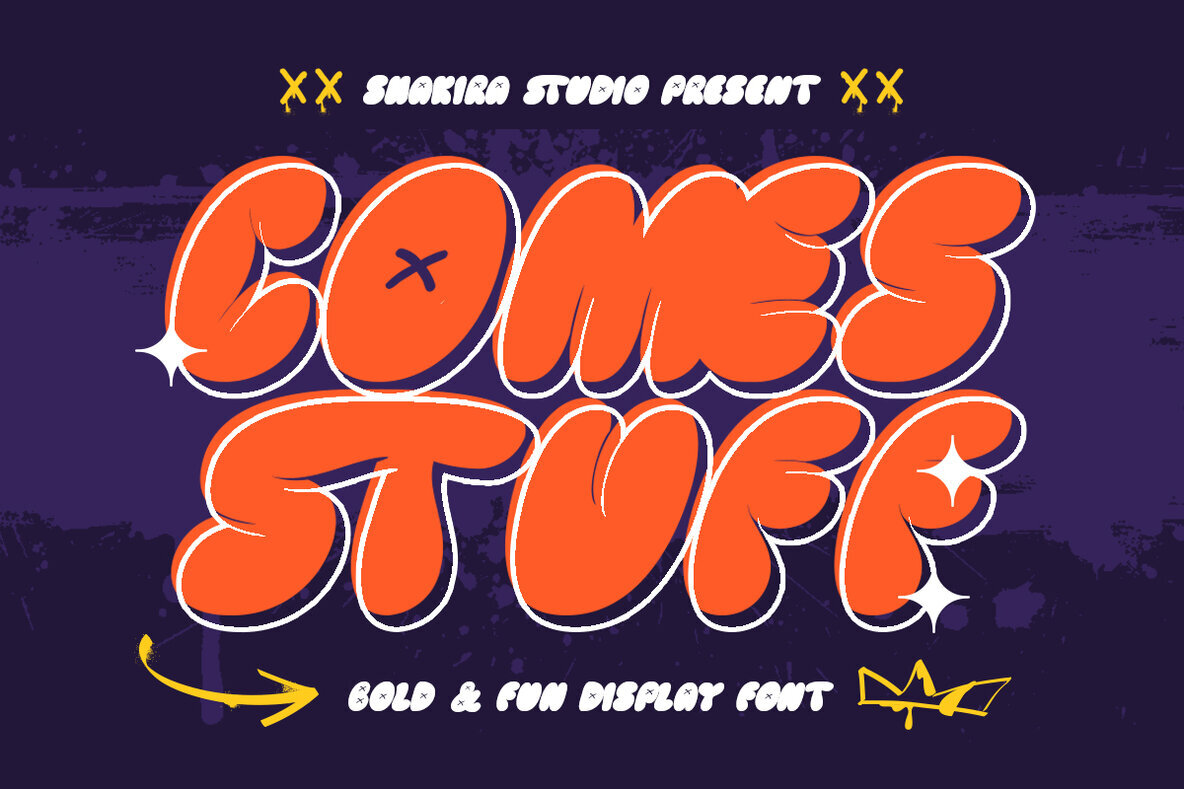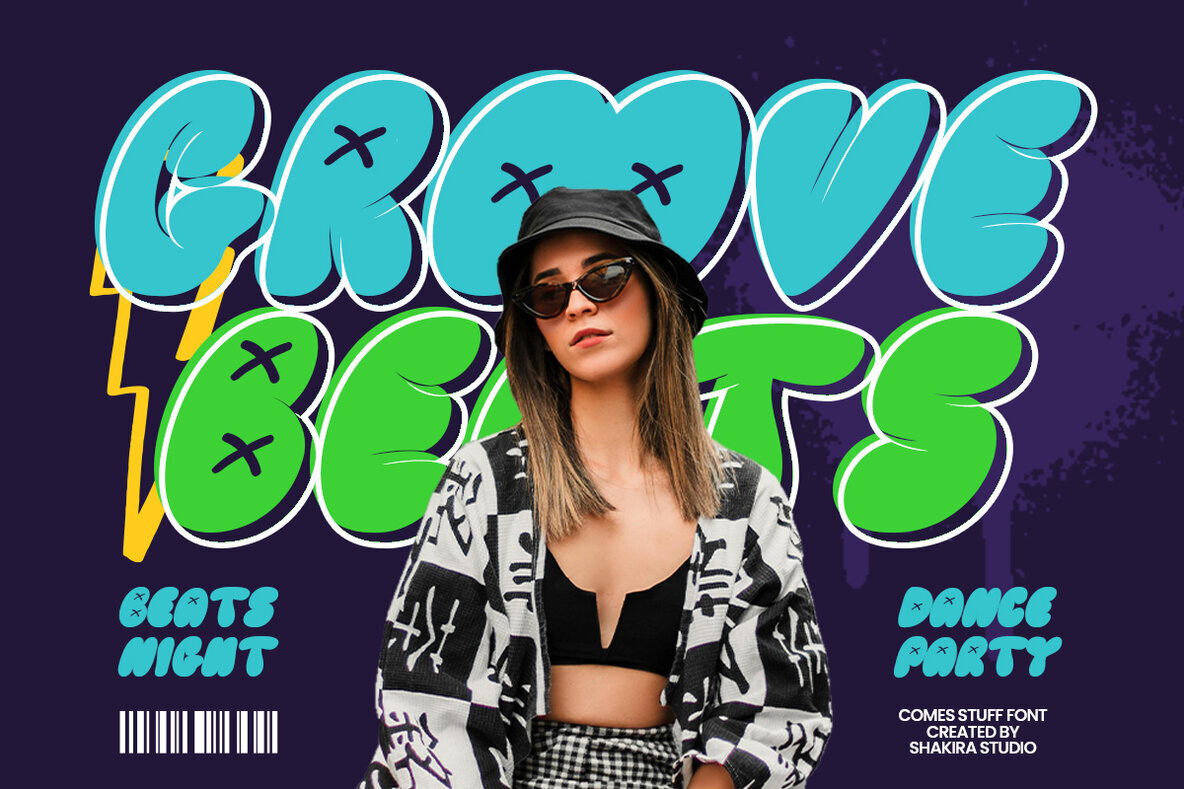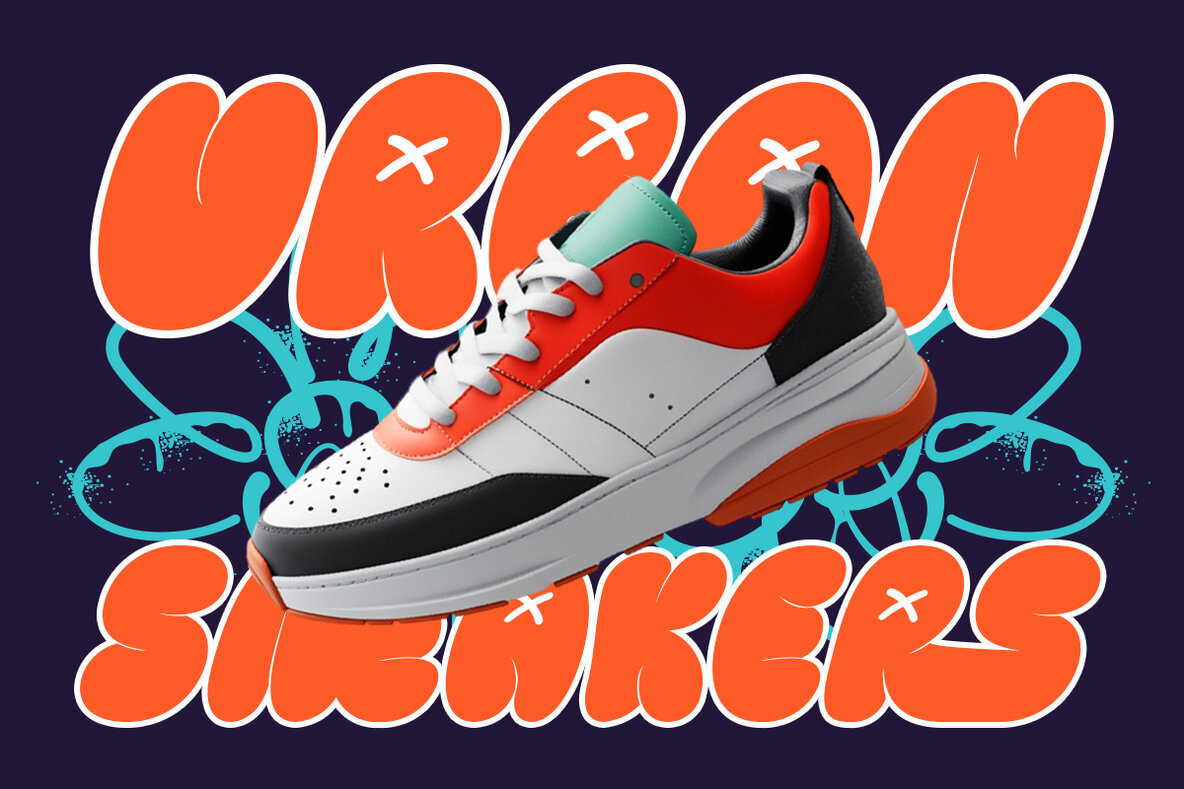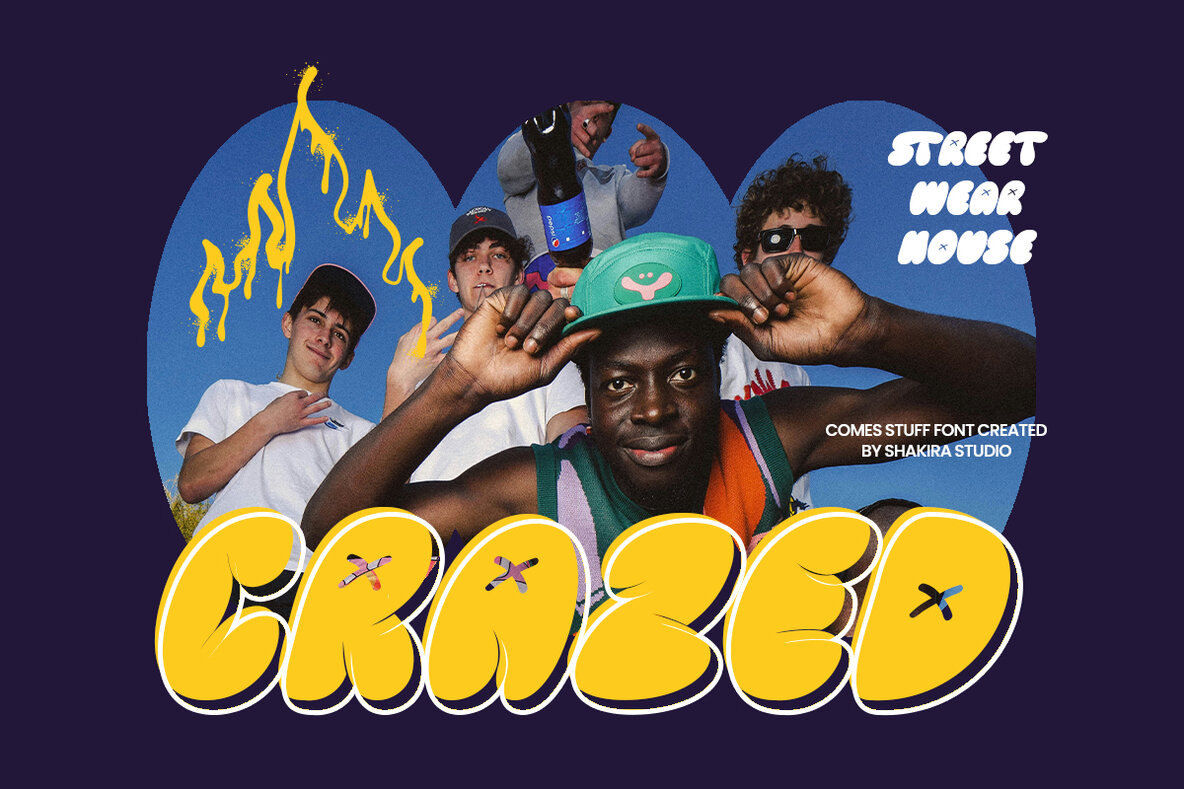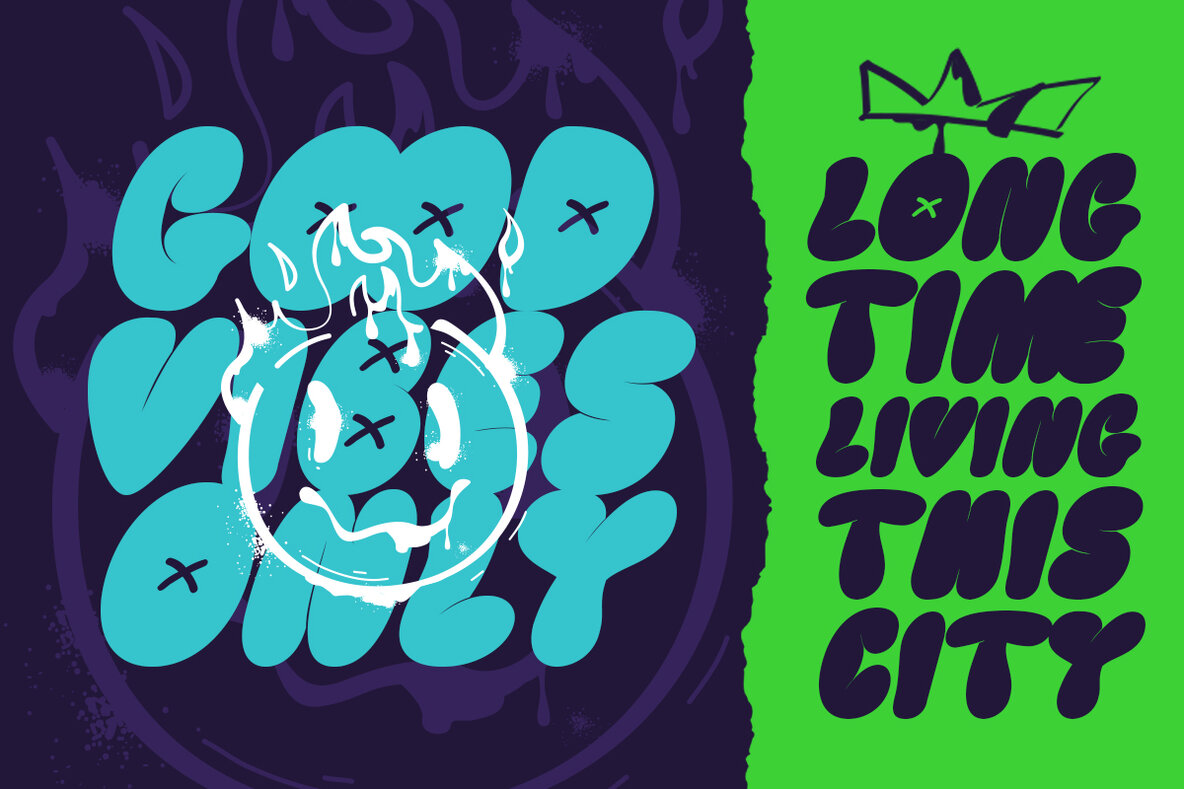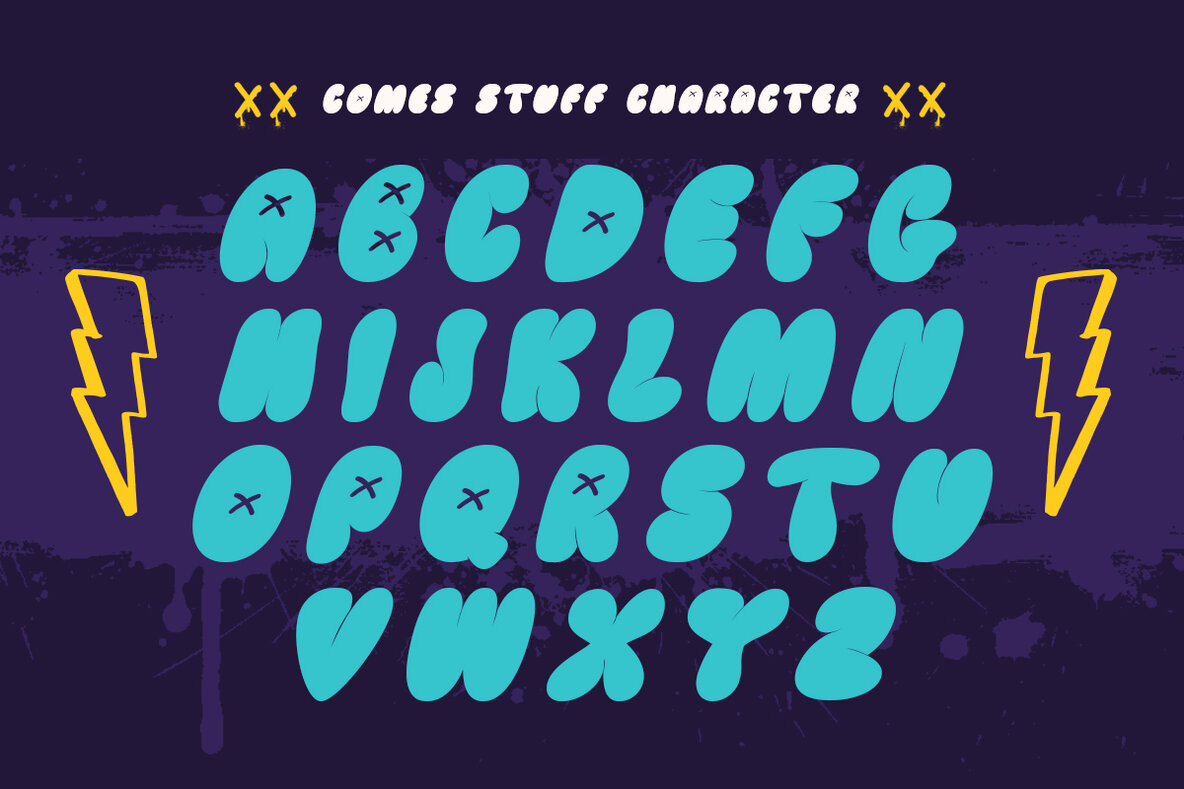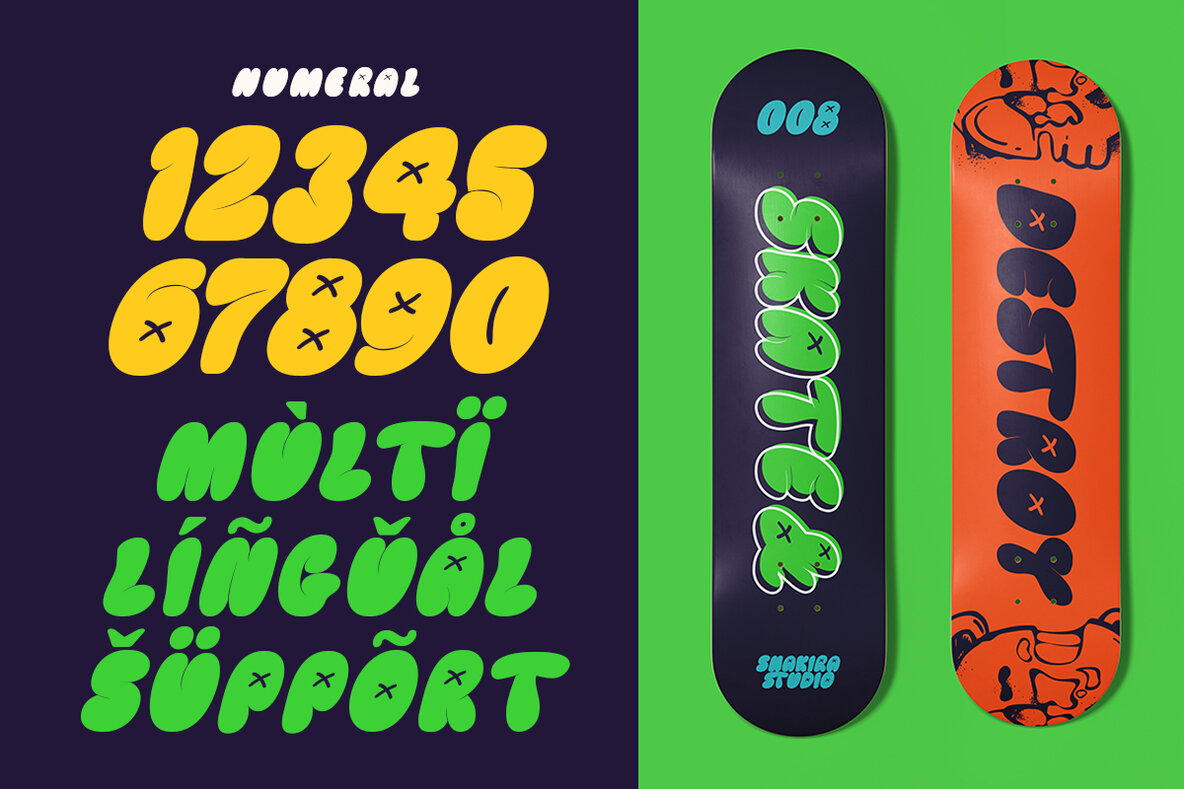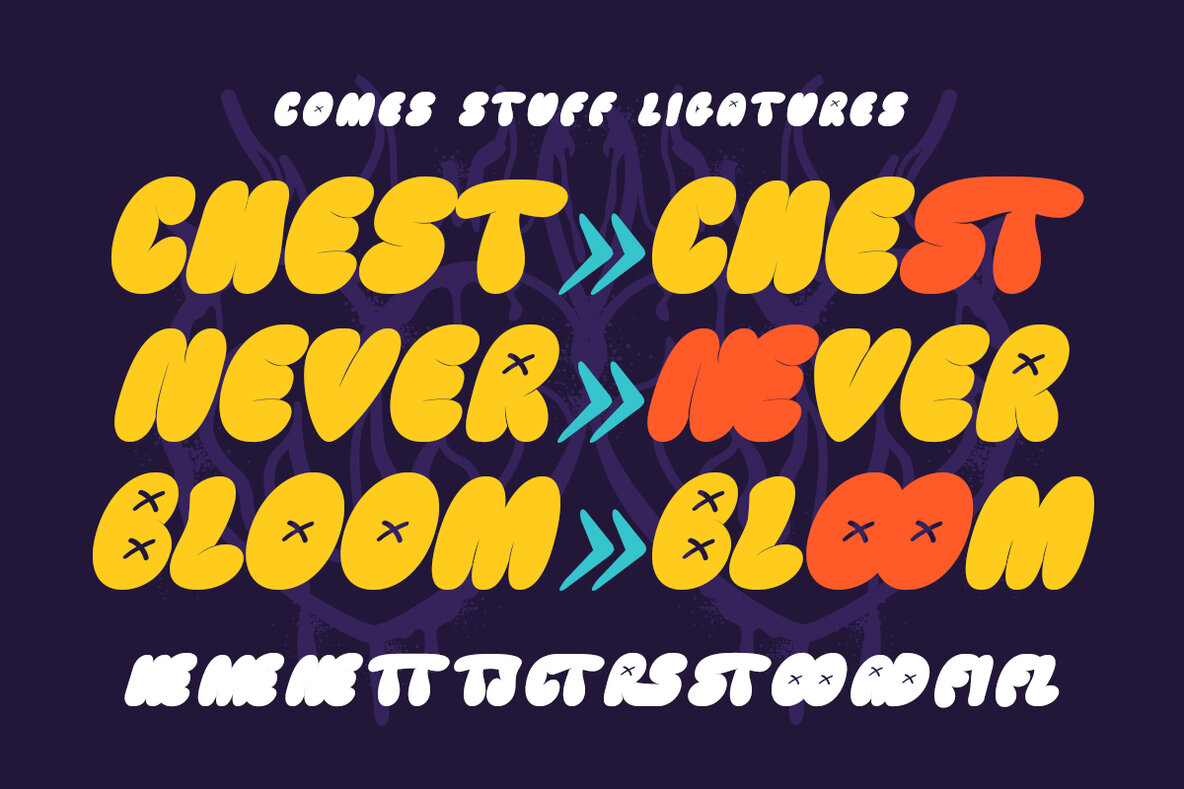
Comes Stuff Font
Comes Stuff is a vibrant display font brimming with cheerful personality and rounded allure. With its playful, bubble-like letterforms, this typeface is ideal for creating eye-catching branding, fun logos, and vibrant packaging that brings joy. Perfect for lively poster designs that resonate with positivity, Comes Stuff sets a playful tone wherever applied. Featuring soft, rounded edges and an upbeat aesthetic, Comes Stuff captures instant fun while ensuring excellent readability. Its approachable character is perfect for brands targeting younger audiences or those aiming to convey a friendly, optimistic image. Perfect for children's product branding, food and beverage packaging, event posters, and toy store logos, Comes Stuff is also a fantastic choice for social media graphics. Available now, spread joy with Comes Stuff!Comes Stuff: Fun & Bubbly Display Font for Playful Branding
Where Playfulness Meets Professional Design
Bring Your Brand to Life with Comes Stuff's Cheerful Spirit